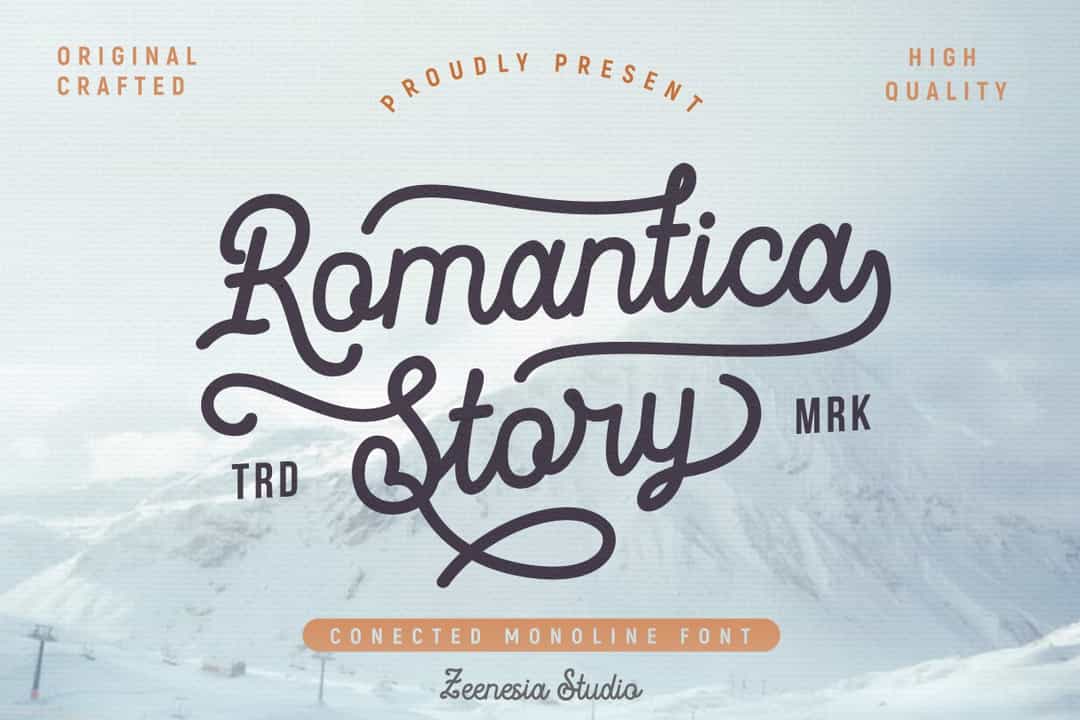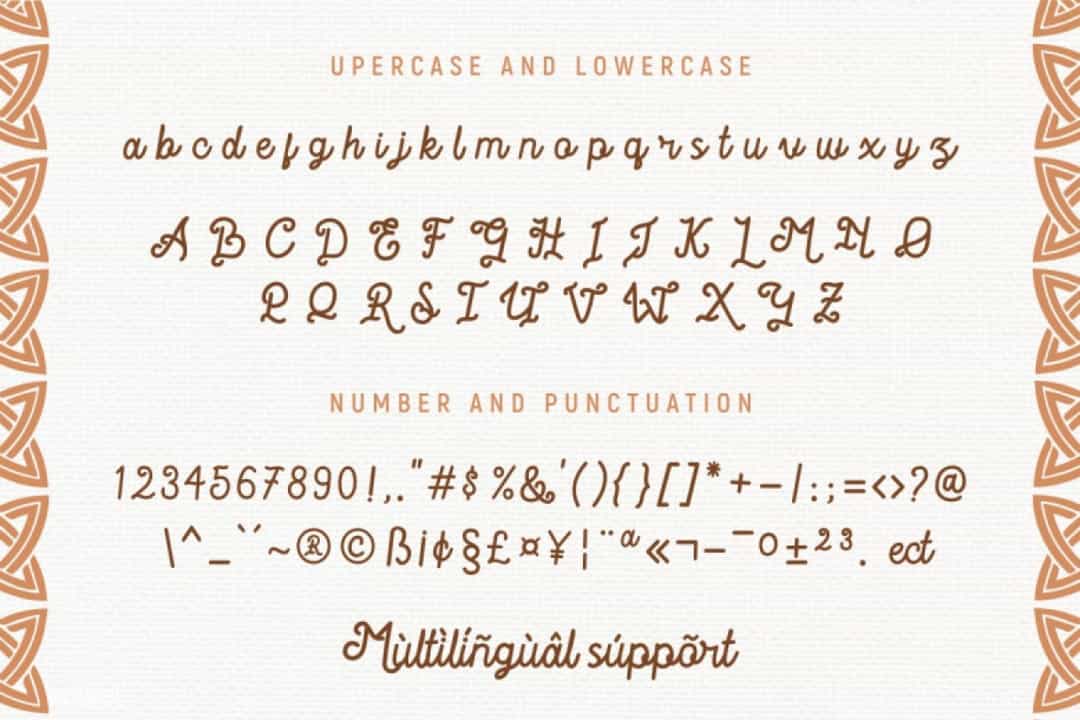
Romantica Story is a beautiful font in handwritten style with round and polished shapes of the characters which are the main appealing features of this font. Ideas ideal for garments, cards, envelopes, name of books stationery designs quotes logos, brand and t-shirts, cards, panels and packages and many other uses.